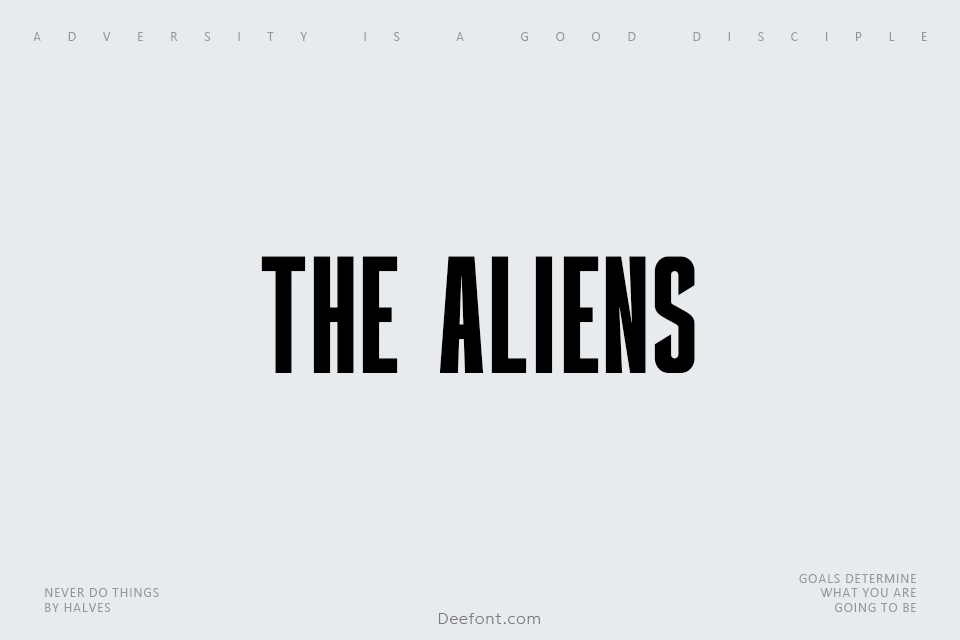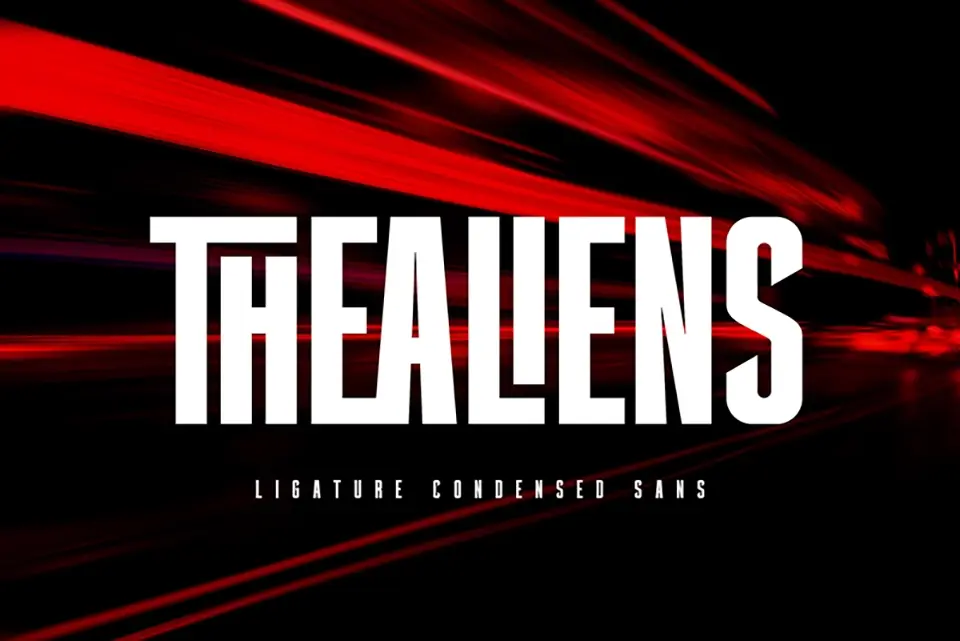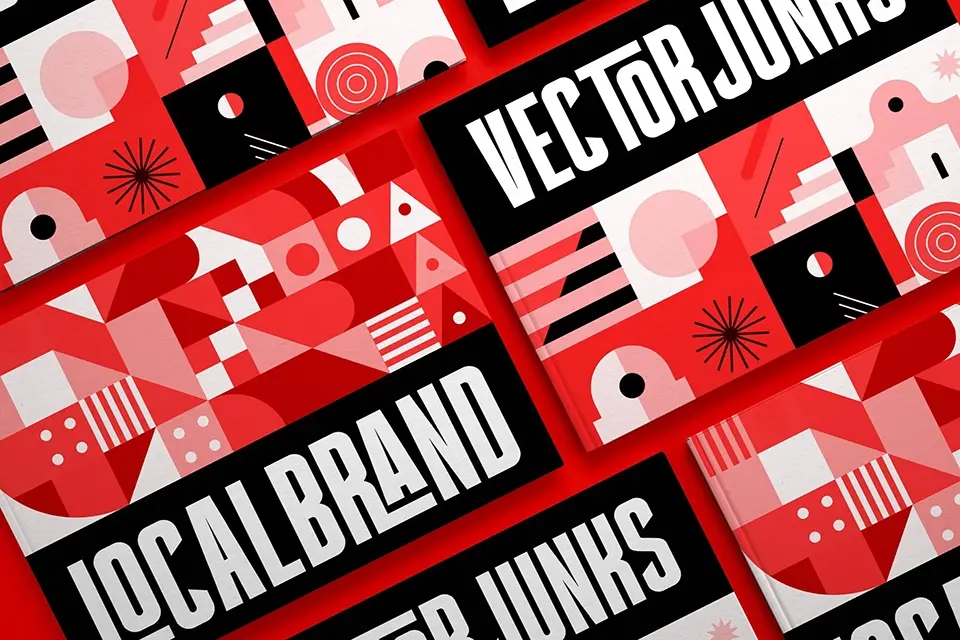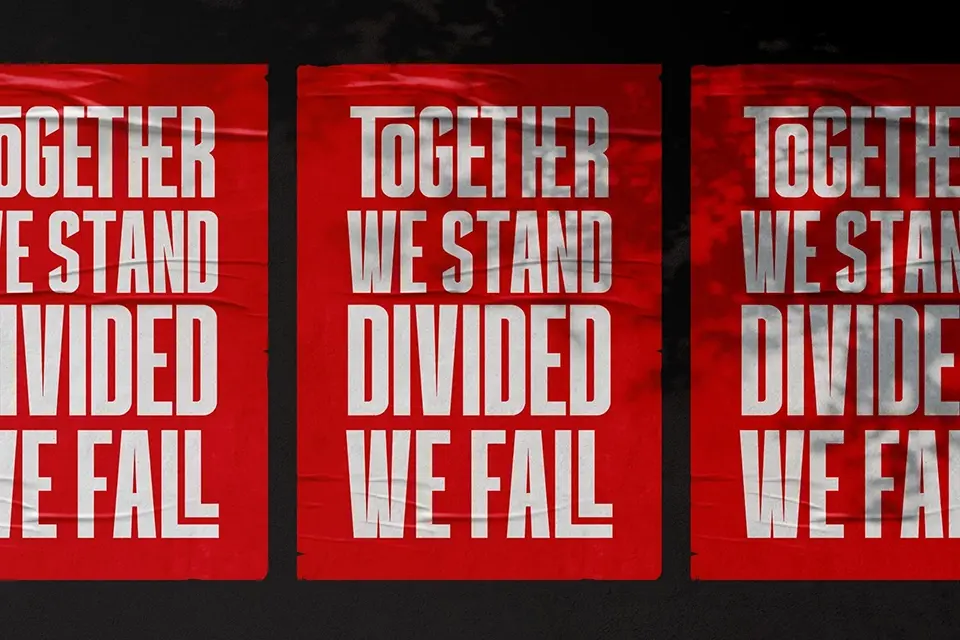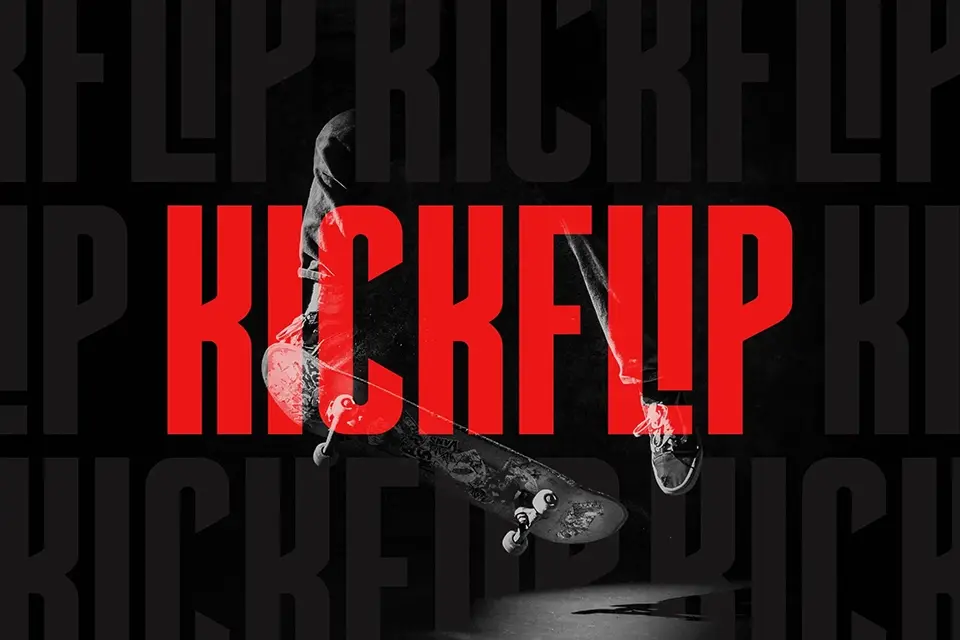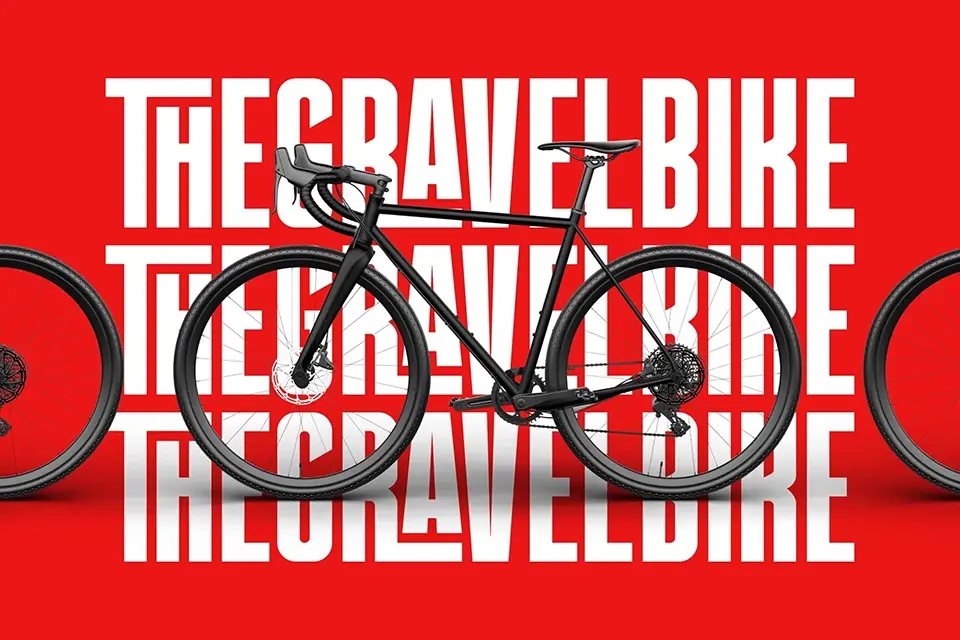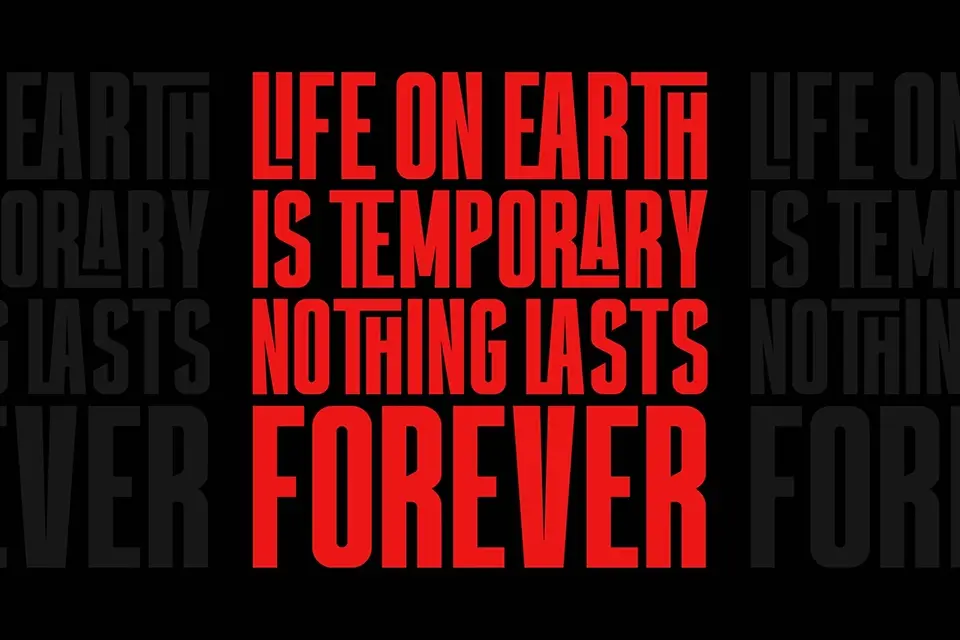
The Aliens Font
The Aliens is a modern Sans Serif display typeface created by Almarkhatype Studio, featuring bold, energetic letterforms with sleek lines and sharp edges inspired by futuristic aesthetics. Designed with strong and challenging nuances, this font combines a clean, precise appearance with eye-catching character, making it ideal for tech websites, gaming graphics, futuristic branding, posters, magazines, and contemporary design projects. The typeface includes thoughtful thickness and density variations with unique ligatures that enhance its distinctive visual identity.